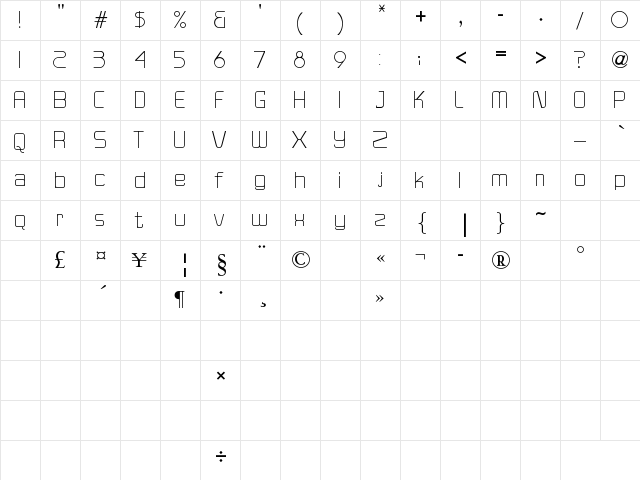
Versaniah_Medium Regular
Design Context for Versaniah_Medium Typeface
Versaniah_Medium offers clean, dependable letterforms without strong stylistic allegiance, making it a practical choice for designers who need flexibility.